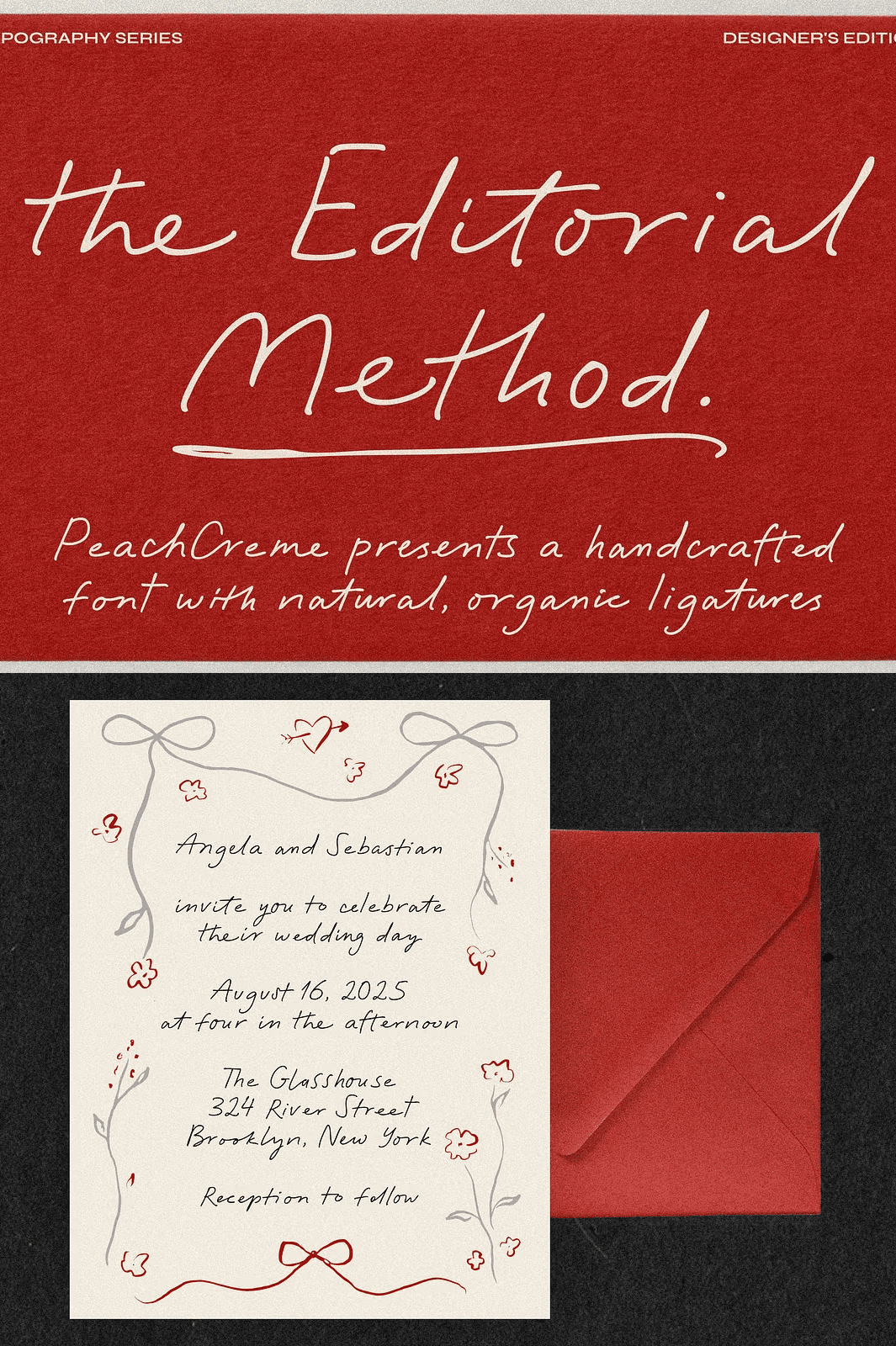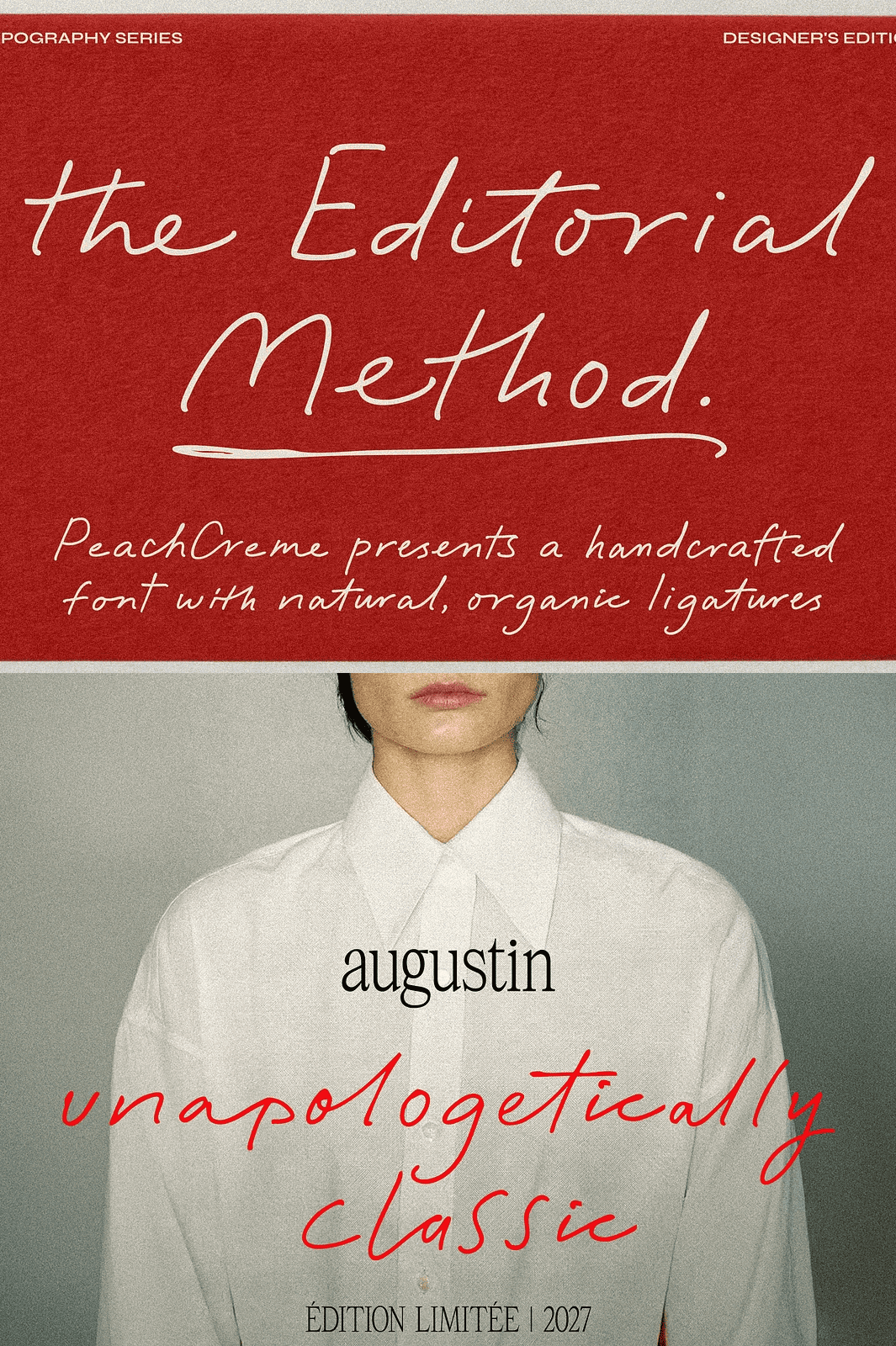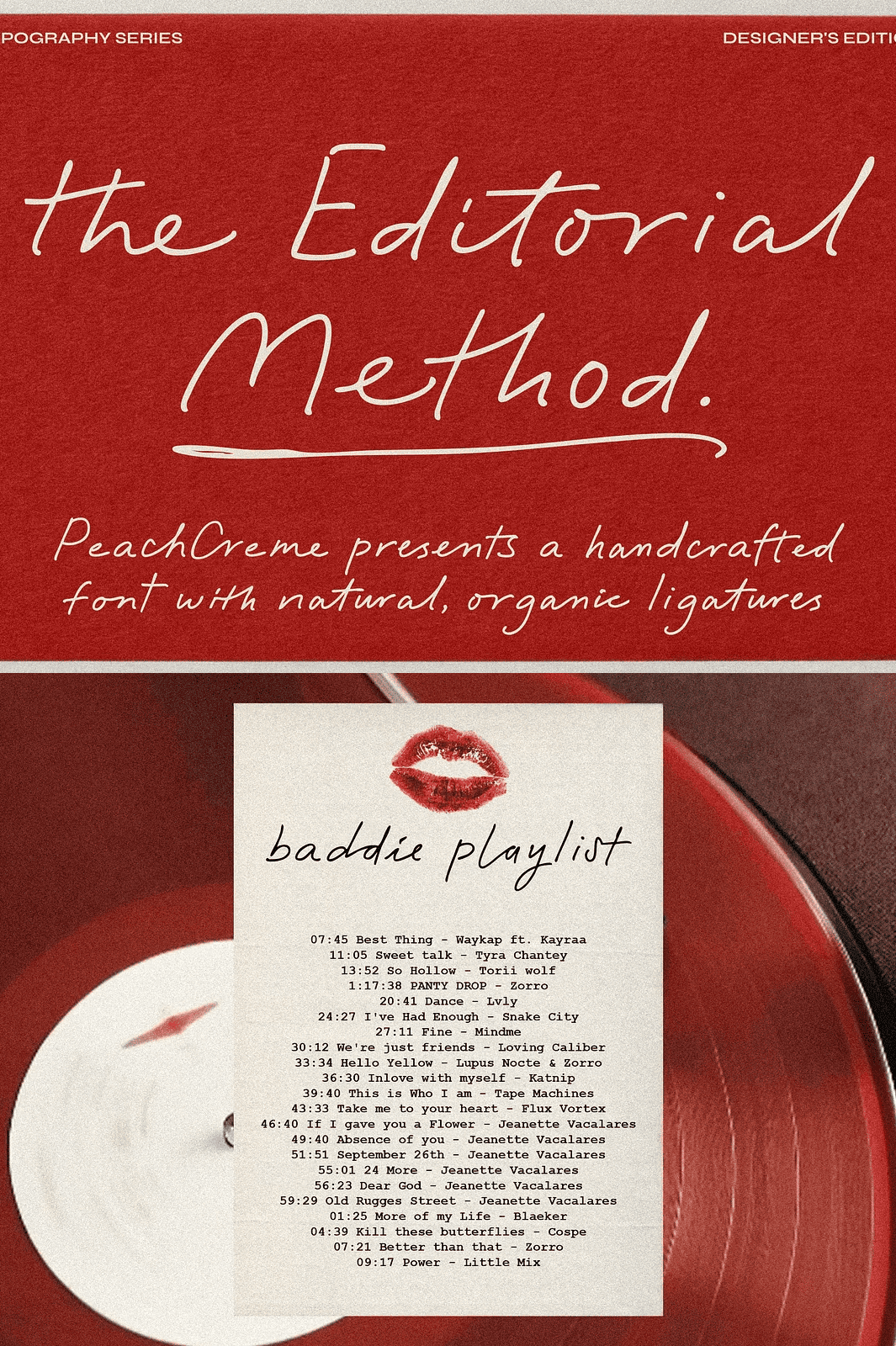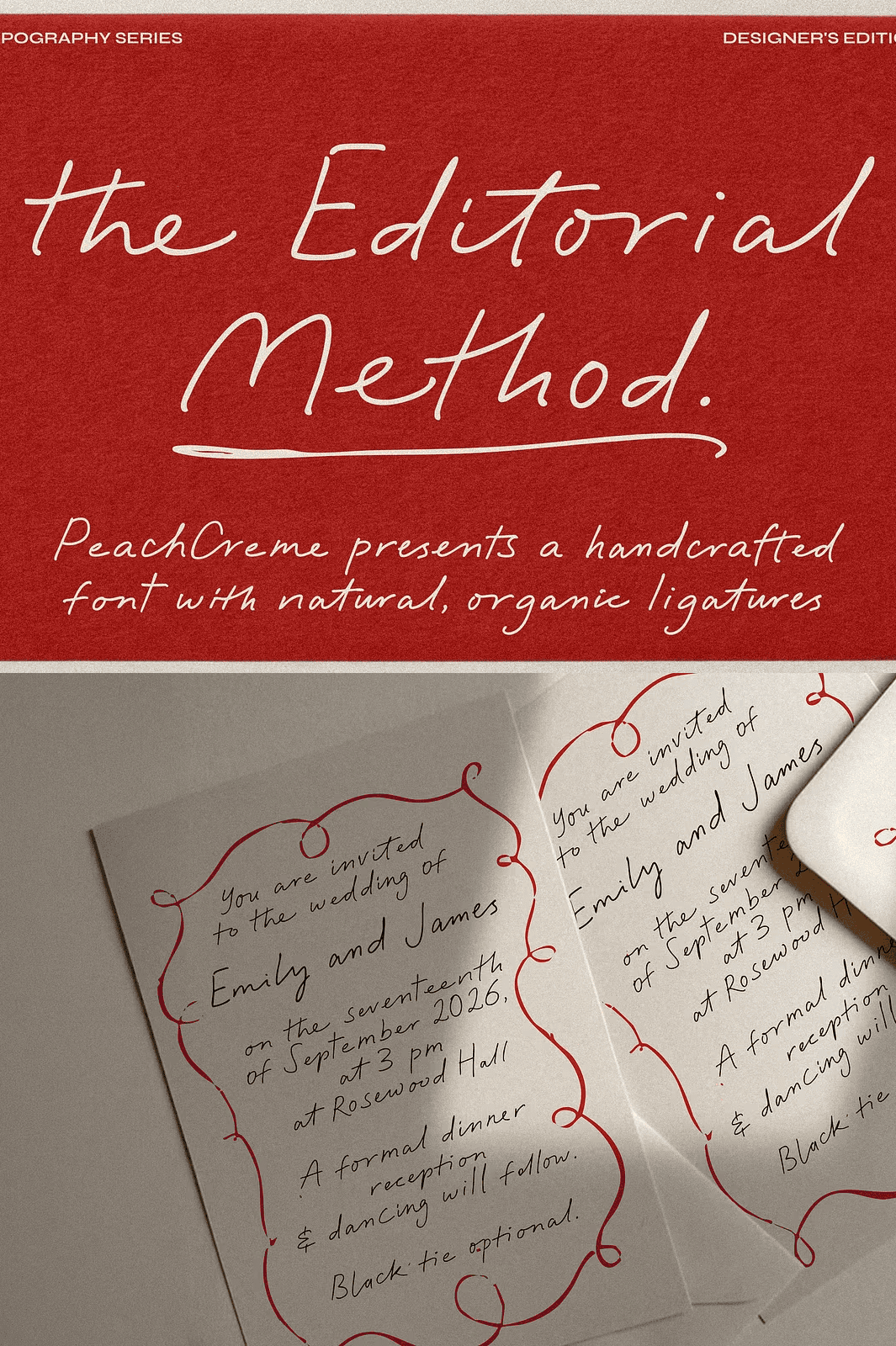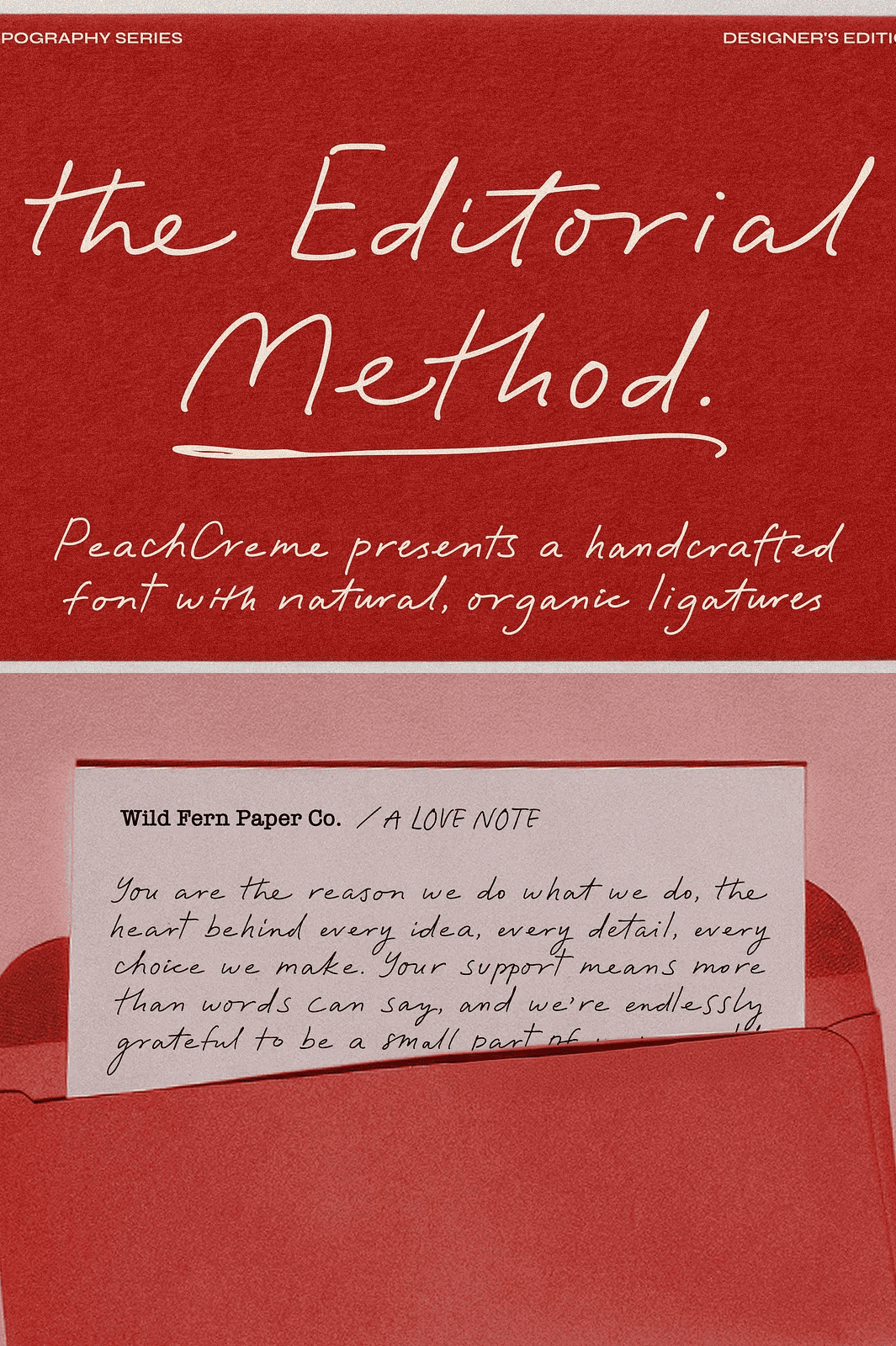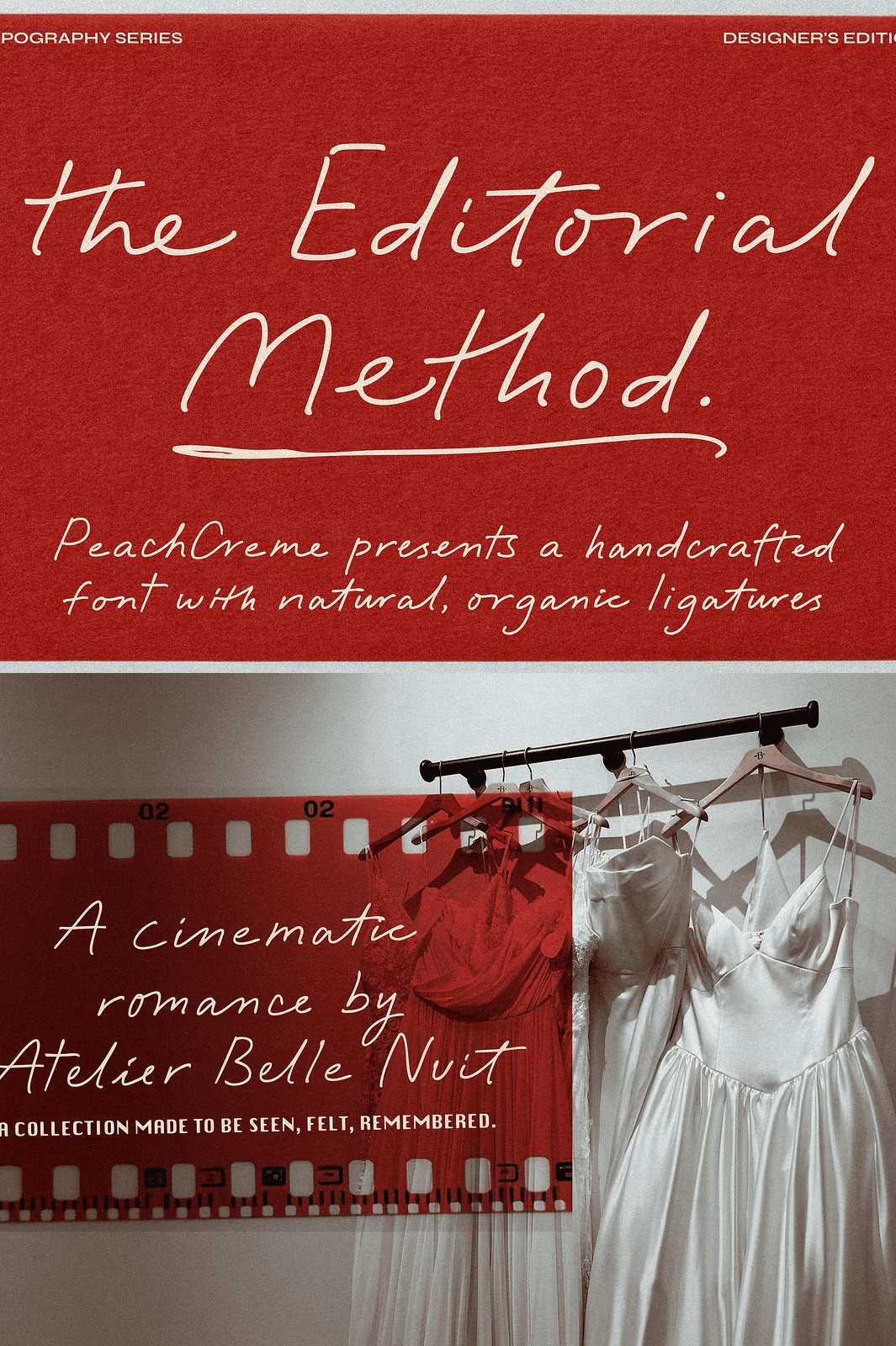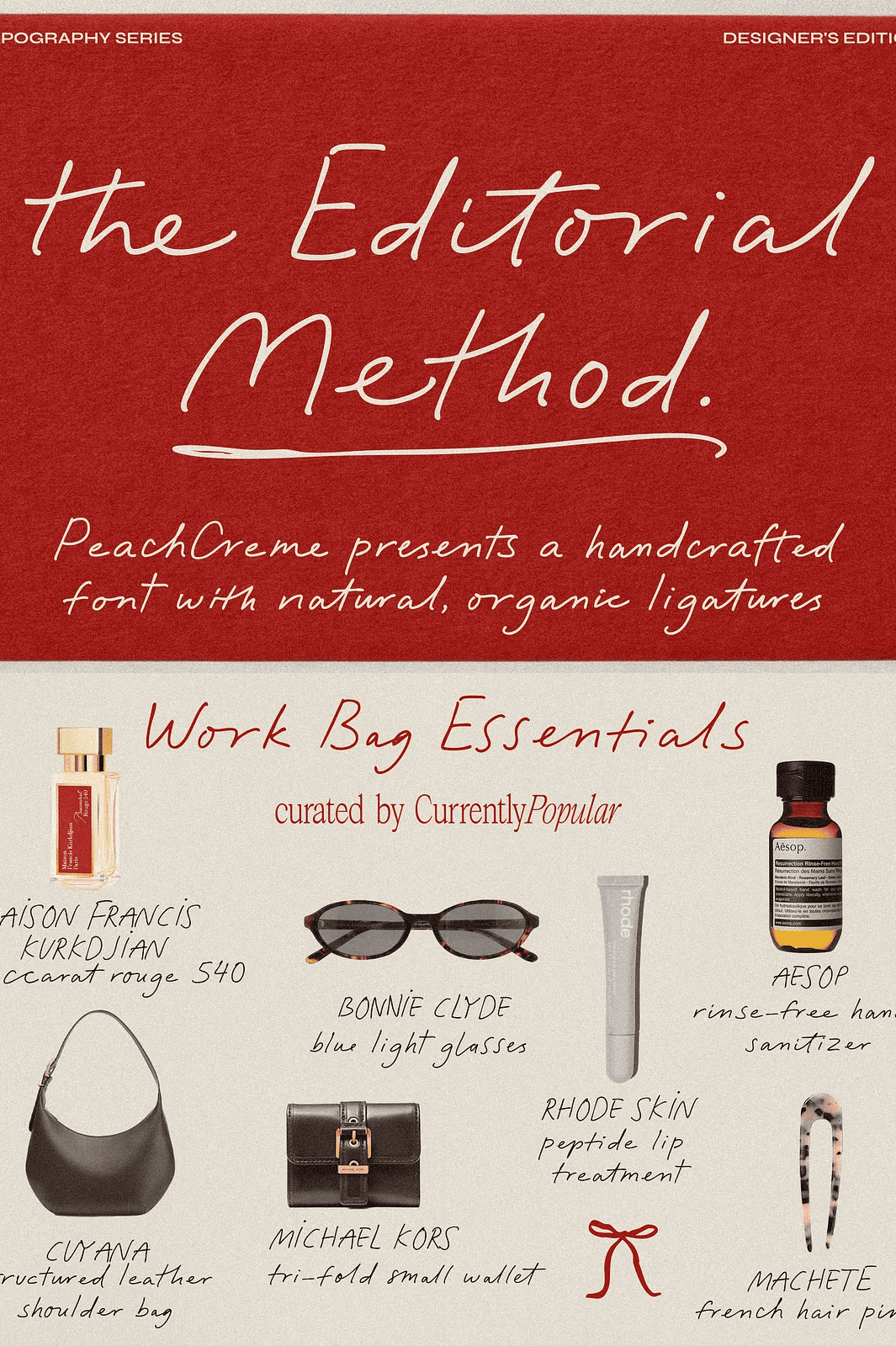
The Editorial Method // Stylish Font
Experience the Perfect Balance of Flow and Structure
Introducing **Editorial Method** – a thoughtfully crafted script font that strikes a flawless balance between **natural fluidity** and **precise structural elegance**. This is not a rushed, mechanical imitation of handwriting. This is **intentional, expressive typography** designed to command attention while maintaining sophistication. With every stroke, Editorial Method conveys a sense of authority, poise, and understated luxury.
Whether you’re designing a premium magazine spread, crafting a high-end brand identity, or creating elegant wedding invitations, Editorial Method brings a level of refinement that instantly sets your work apart. Its organic ligatures flow seamlessly from letter to letter, creating a natural, handwritten rhythm that feels alive and authentic. This isn’t just a font — it’s a statement of design excellence.
Two Powerful Weights for Maximum Versatility
Editorial Method isn’t just stylish — it’s adaptable. With **two distinct weights — Regular and Bold** — you gain complete control over the mood and hierarchy of your design.
– Use the **Regular weight** for sophisticated body text, elegant headlines, or subtle branding elements.
– Choose the **Bold weight** to create standout headlines, powerful section dividers, or dramatic focal points.
This dual-weight system ensures that Editorial Method performs seamlessly across diverse applications, from detailed editorial layouts to impactful promotional graphics.
Unlock Creativity with Advanced Typography Features
Go beyond standard letters. Editorial Method includes a **comprehensive set of OpenType features** designed to give you full creative freedom:
– **Natural, context-sensitive ligatures** that automatically connect letters in a fluid, handcrafted way.
– An **alternative uppercase set** that introduces refined variations and visual diversity.
– Support for multiple language scripts, ensuring flawless performance in international projects.
Perfect for Elegant Applications Across Industries
Editorial Method was built for high-impact projects where style and substance matter equally. Use it to:
– Create **editorial layouts** for fashion magazines, lifestyle blogs, or literary reviews.
– Design **sophisticated branding** for luxury goods, boutique services, or wellness brands.
– Craft **handwritten-style invitations** that feel personal and memorable.
– Develop **high-end packaging** for cosmetics, wine, or artisanal products.
– Build **elegant digital identities** for websites and social media that exude professionalism.
Its versatility, combined with its timeless appeal, makes it a must-have in every designer’s toolkit.